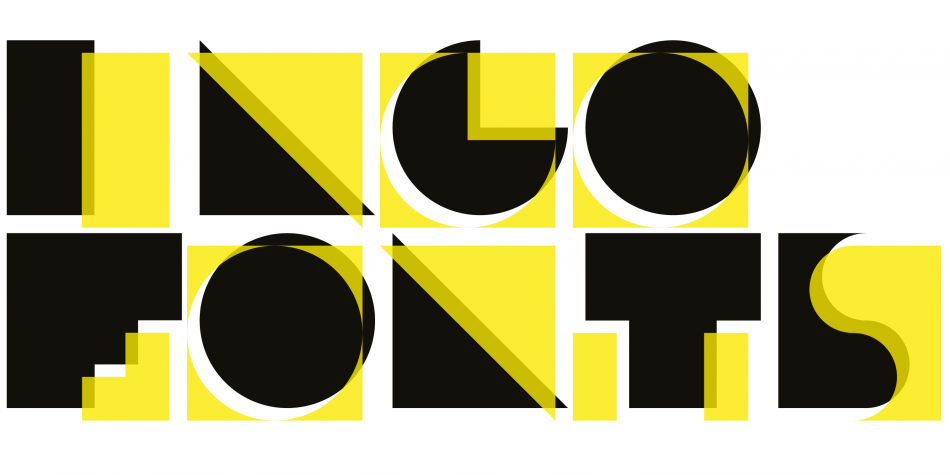
Dékó Font
Dékó Display Font
I want to introduce to you a new display font, and is free. That is Dékó Font! Dékó designed by Ingo Zimmerman, and is published by ingoFonts. Dékó is a display sans font. Dékó is not really a font as such. Dékó is just decorative. But completely without frills. Geometric stems which are arranged in a square result in small graphic works of art. The characters are just barely still recognizable as letters. Each letter is its own little logo…